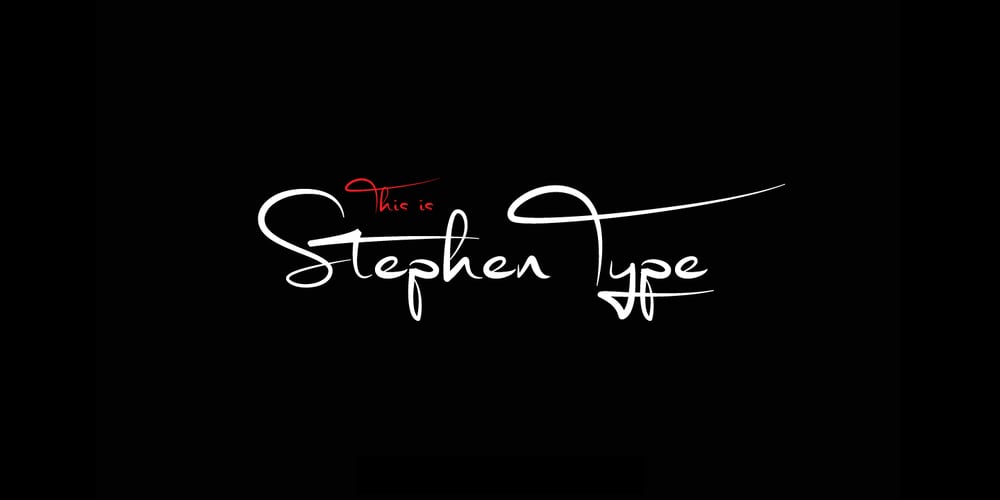
Stephen Type Font Family was designed by Joanne Hewitt and published by Joanne Marie. Stephen Type contains 1 styles and family package options. Stephen Type is a realistic handwriting and signature font. Please see all of the additional pictures to see how it looks and view the glyphs (includes some Latin glyphs).It can be used for a wide range of projects, such as book design, logo designs, online signatures, email signatures, tattoos, t-shirt designs, signs, magazine design, greetings cards, poster design and much more!